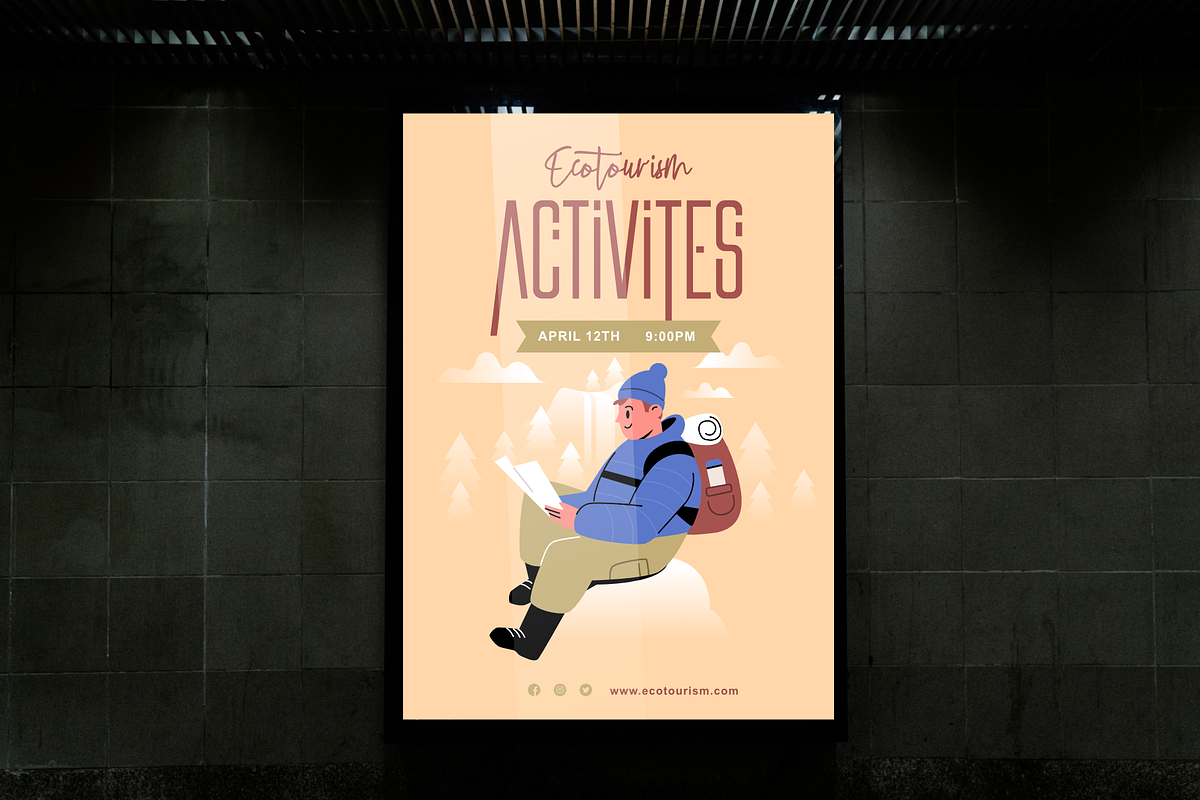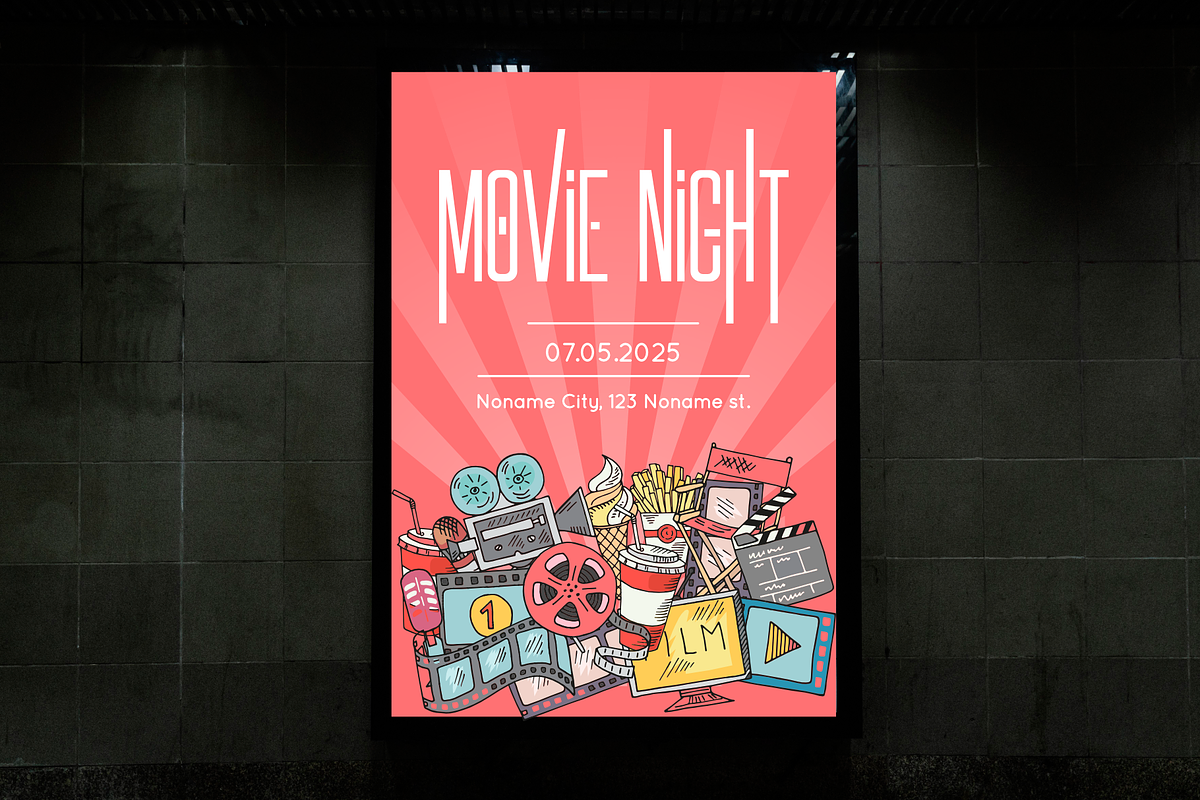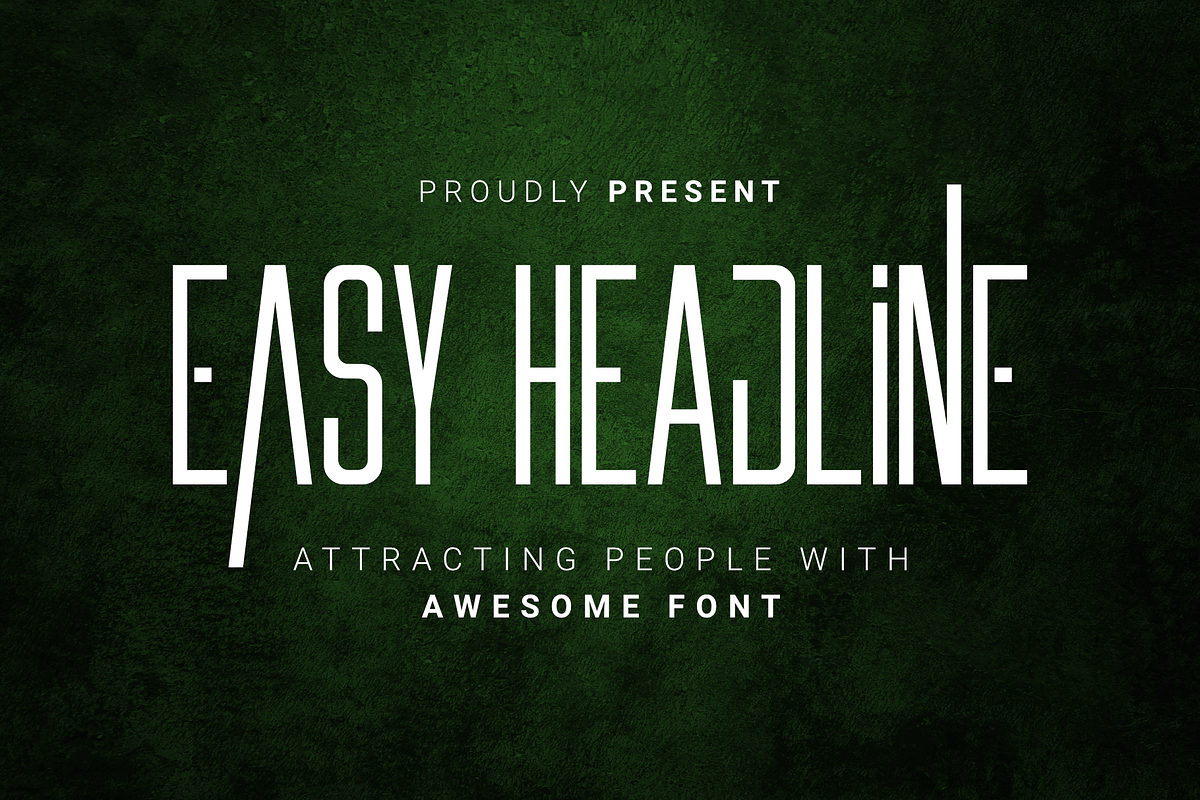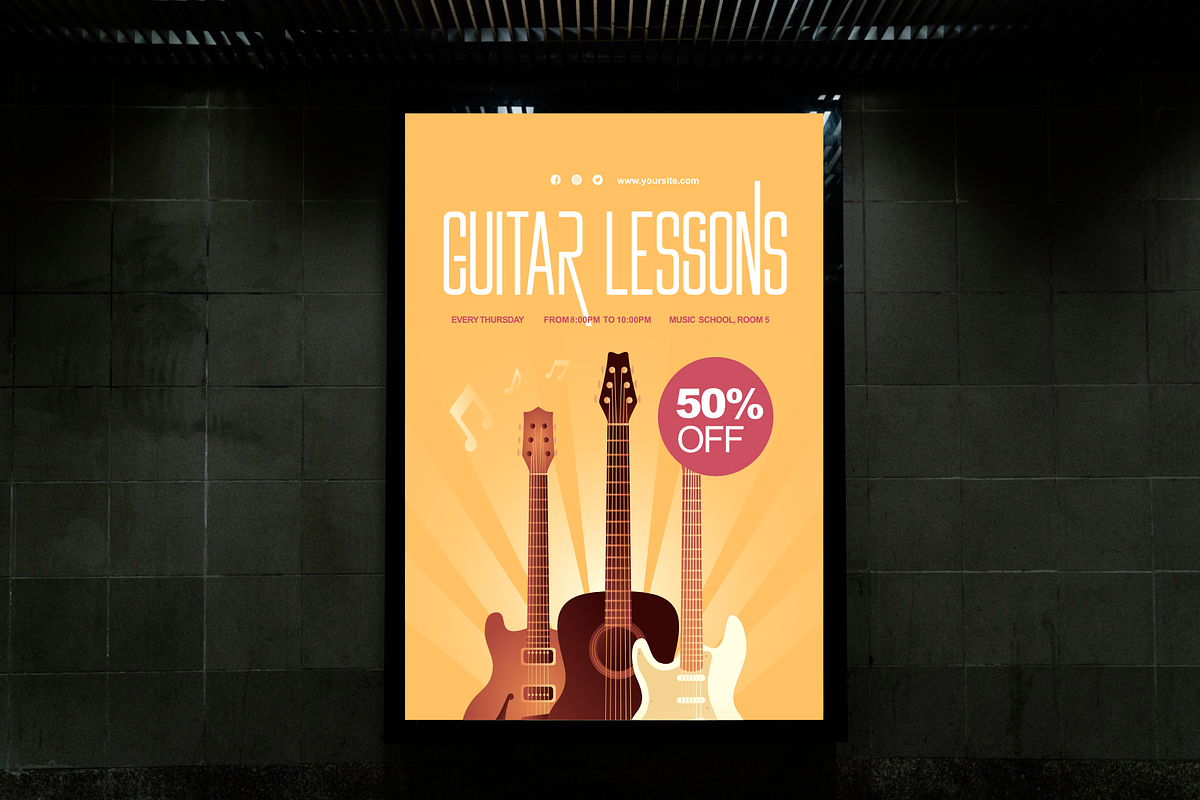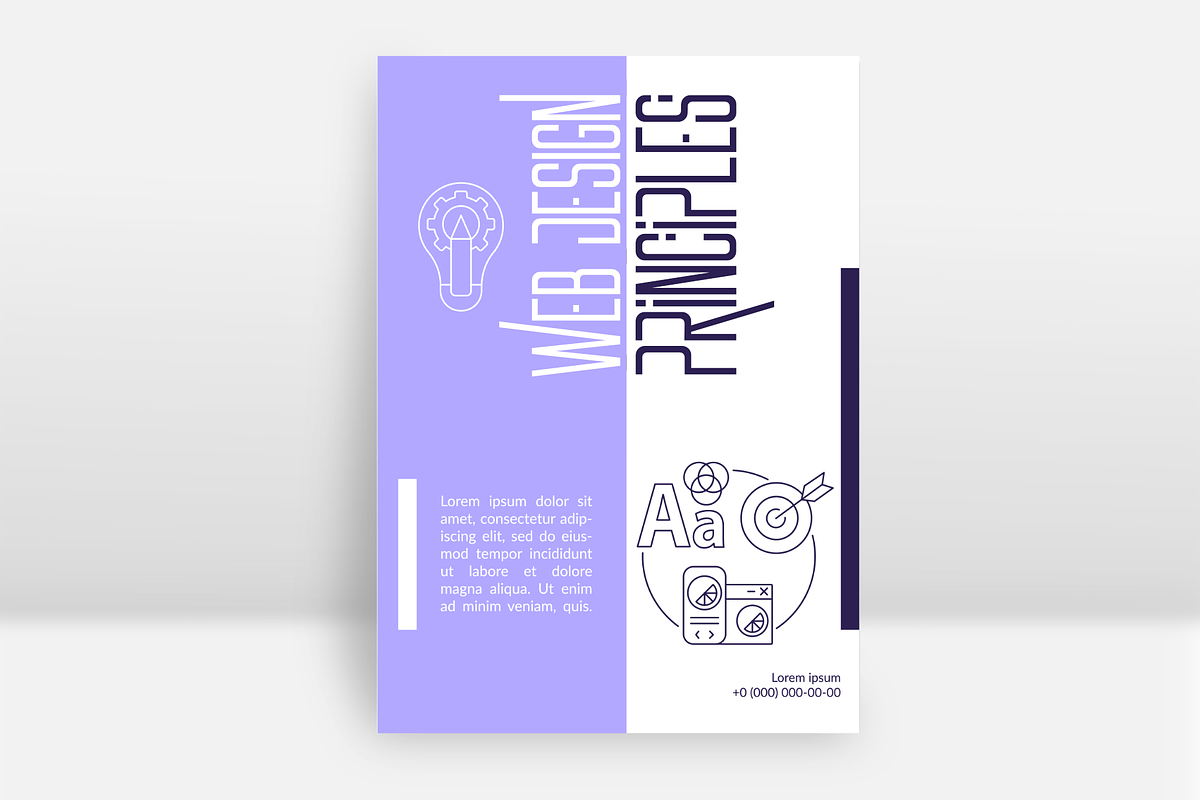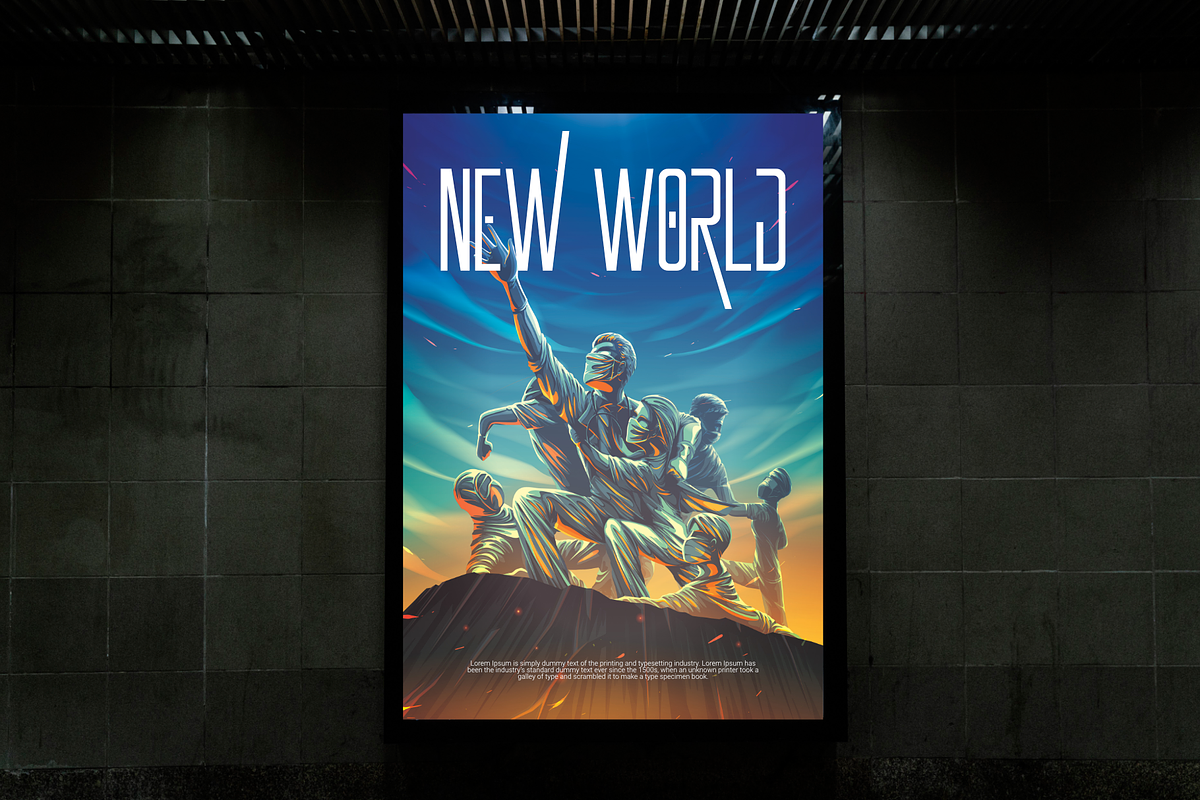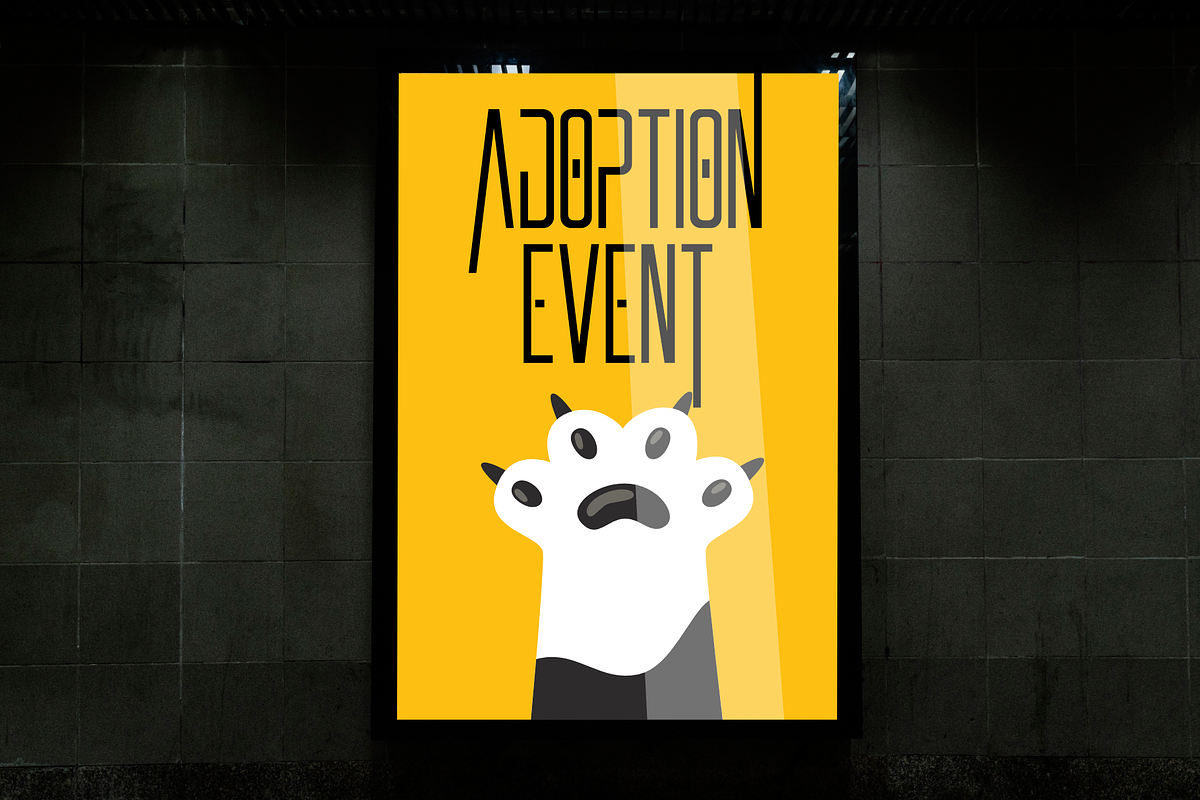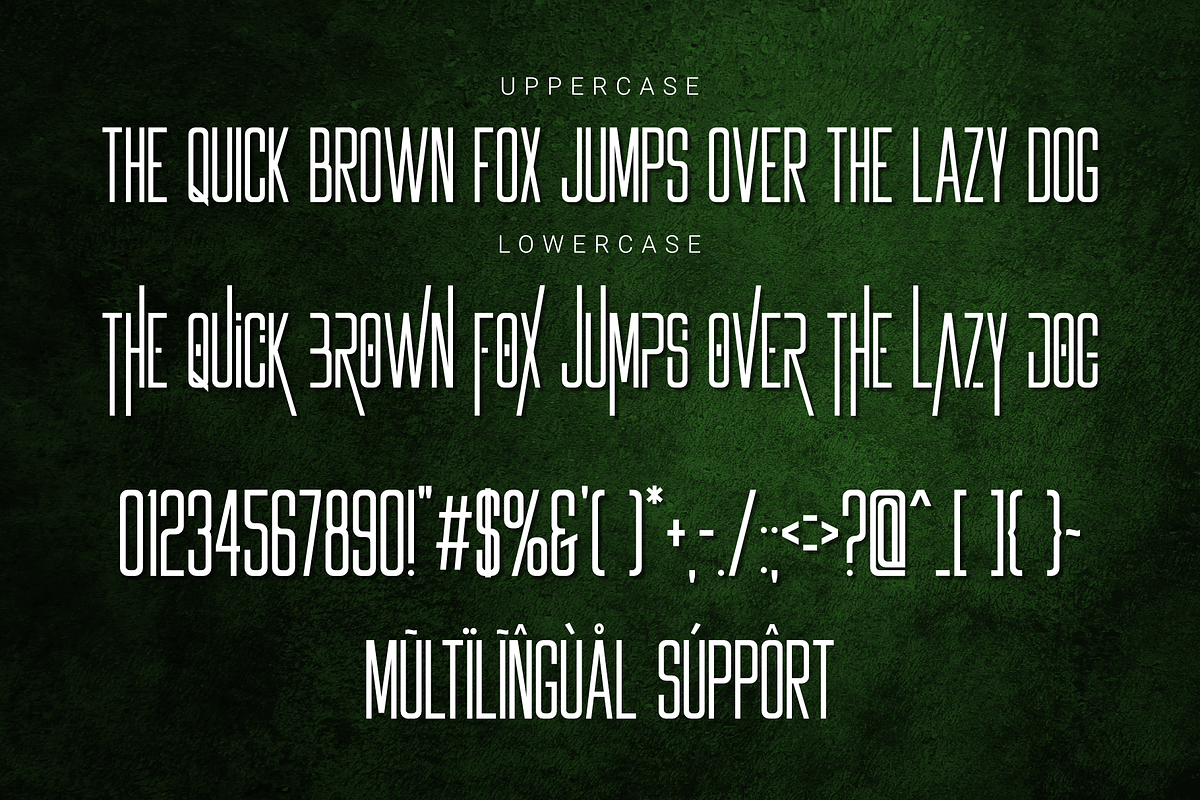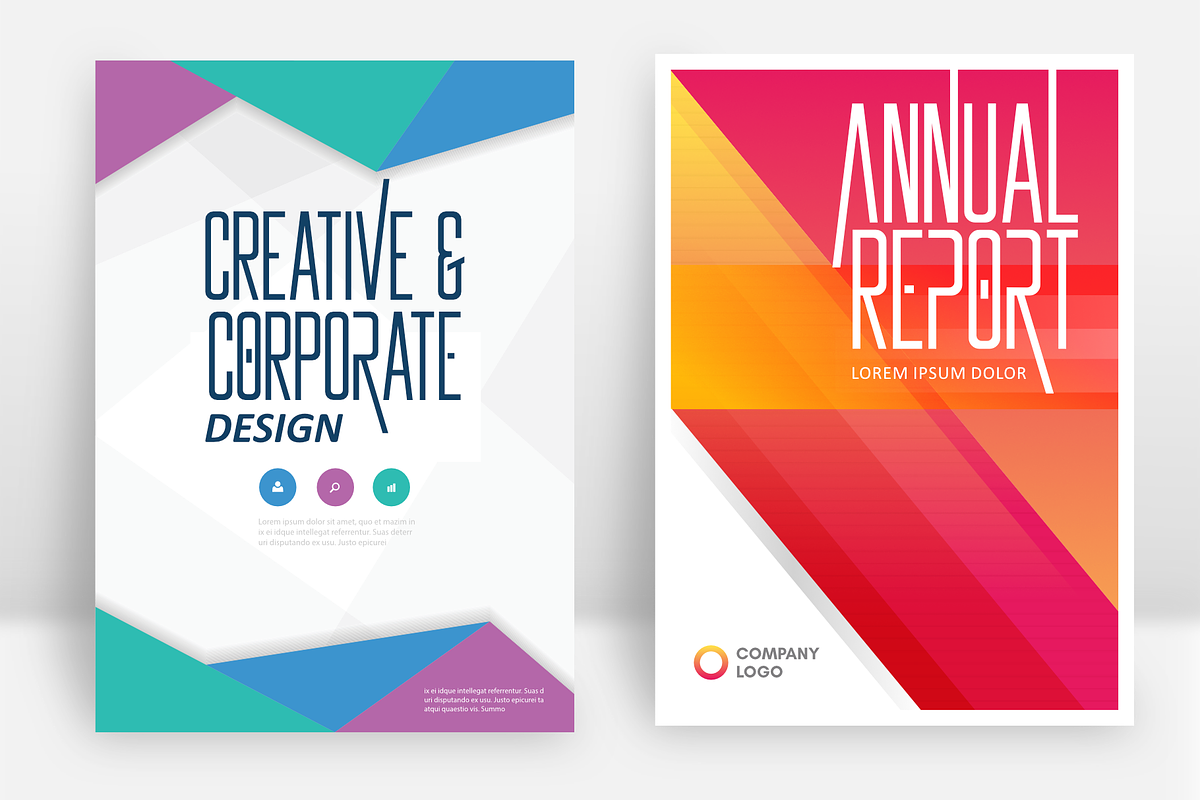
Easy Headline
Easy Headline is equipped with Uppercase Letters, Lowercase Letters made with unique and cool shapes, Numbers, and Multilingual Support. This font is made for any professional branding project, Great for creating titles, Movie titles, Event titles, Social media titles, Book cover titles, Poster titles, branding, posters, Each letter has a unique and beautiful touch.
- Multilingual Accent
This Font Support Languages : Afrikaans, Albanian, Asu, Basque, Bemba, Bena, Breton, Catalan, Chiga, Cornish, Danish, Dutch, English, Estonian, Faroese, Filipino, Finnish, French, Friulian, Galician, German, Gusii, Indonesian, Irish, Italian, Kabuverdianu, Kalenjin, Kinyarwanda, Luo, Luxembourgish, Luyia, Machame, Makhuwa, Meetto, Makonde, Malagasy, Manx, Morisyen, North, Ndebele, Norwegian, Bokmål, Norwegian, Nynorsk, Nyankole, Oromo, Portuguese, Quechua, Romansh, Rombo, Rundi, Rwa, Samburu, Sango, Sangu, Scottish, Gaelic, Sena, Shambala, Shona, Soga, Somali, Spanish, Swahili, Swedish, Swiss, German, Taita, Teso, Uzbek (Latin), Volapük, Vunjo, Zulu.